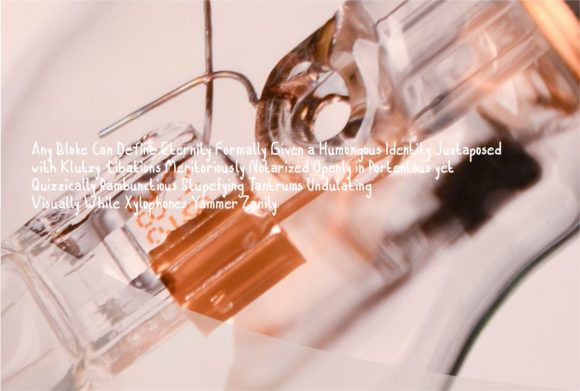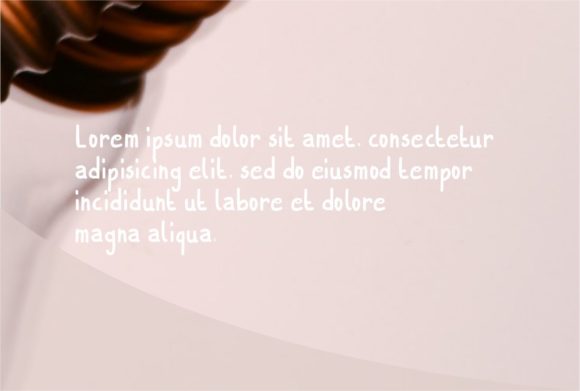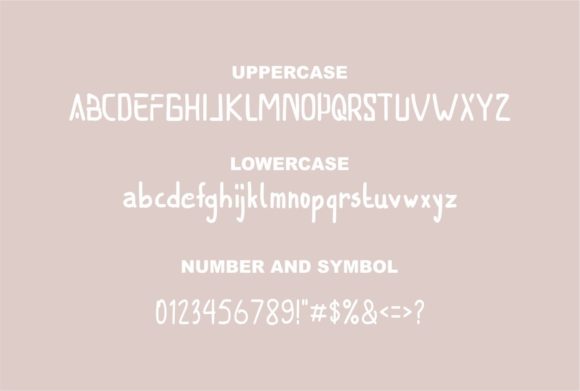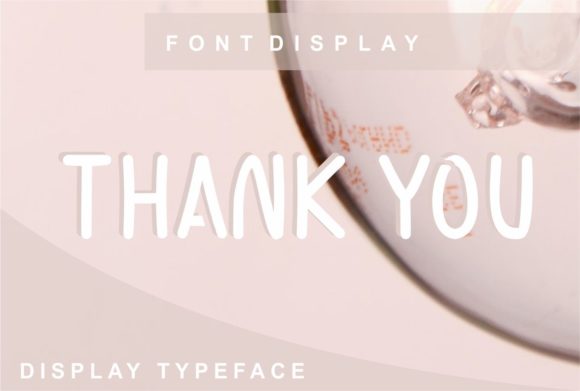
The Perfect Typography Companion: Anomi Font
As designers, we’ve all been there – staring at a blank canvas, struggling to find the perfect words to convey our message. The right font can make all the difference, elevating our creations from mere visuals to truly impactful art. And that’s where Anomi Font comes in – a clean and adaptable display font designed to take your designs to the next level.
With Anomi Font, you’ll have the flexibility to tackle any project with confidence. Whether you’re working on a bold campaign or a delicate invitation, this versatile font will be your go-to companion. Its clean lines and modern aesthetic make it an invaluable addition to any font library, allowing you to create stunning visuals that truly reflect your vision.
Anomi Font Key Features
- Font Family: Anomi Font is a sans-serif font family designed for modern and minimalist designs.
- Character Count: The font family includes over 200 characters, including uppercase and lowercase letters, numbers, and punctuation marks.
- Unique Characteristics: Anomi Font features a unique blend of geometric and organic shapes, resulting in a clean and modern aesthetic.
Anomi Font Review
As a designer, I’ve had the chance to work with Anomi Font, and I must say it’s an interesting addition to the font family. ✨ One of the things that works well with Anomi is its unique, handwritten feel. It’s perfect for adding a personal touch to your designs, especially for projects that require a more informal tone. The font’s fluidity and dynamic nature make it ideal for titles, headings, and even body text.
Another advantage of Anomi Font is its versatility. It comes in multiple styles, from casual to formal, making it suitable for a wide range of designs. The font’s flexibility in terms of size and spacing also allows designers to experiment with different layouts and arrangements.
- ⚠️ Anomi Font can be overwhelming when used extensively. Its playful, handwritten style may become too much for the reader’s eyes if not balanced with other typography.
- ⚠️ The font may not be the best choice for projects that require a lot of text or complex layouts. Its unique style can make it difficult to read in certain situations.
Overall, Anomi Font is a solid choice for designers looking to add a touch of personality to their projects. While it may have some limitations, its unique style and versatility make it a great addition to any font library.
Tips for Getting the Most Out of Anomi Font
Use Anomi font for titles, headings, and emphasis to create a unique and eye-catching design.
Experiment with different font sizes and colors to create visual hierarchy and contrast.
Combine Anomi font with other fonts to create a visually appealing and balanced design.
Anomi font is ideal for:
Graphic design projects (e.g., posters, flyers, and brochures).
Brand identity projects (e.g., logos, business cards, and letterheads).
Web design projects (e.g., headings, titles, and emphasis).